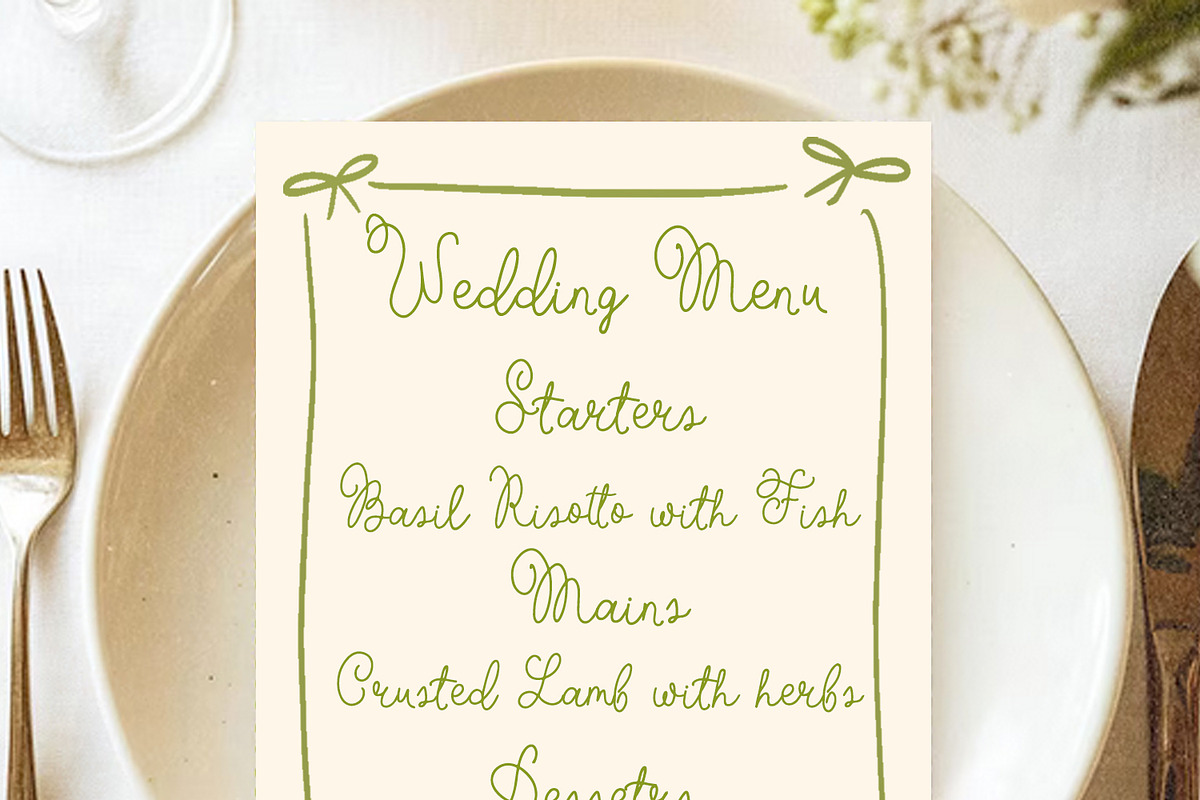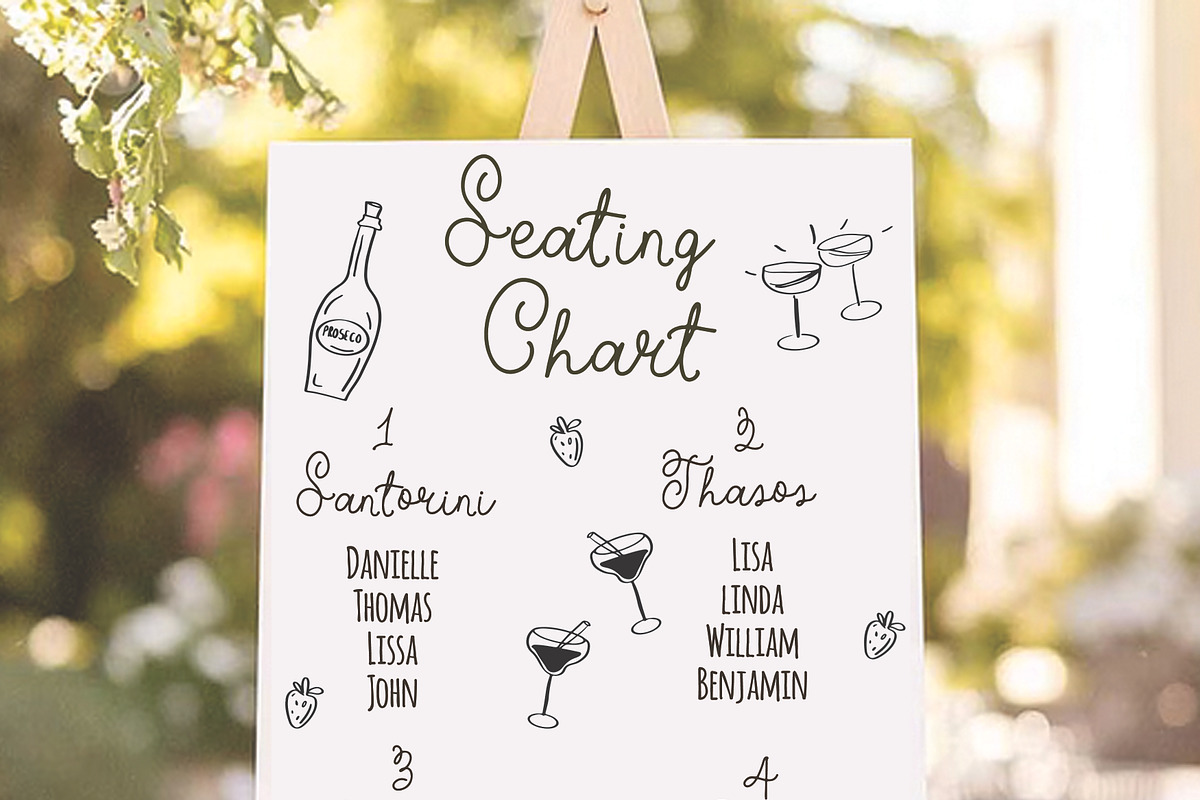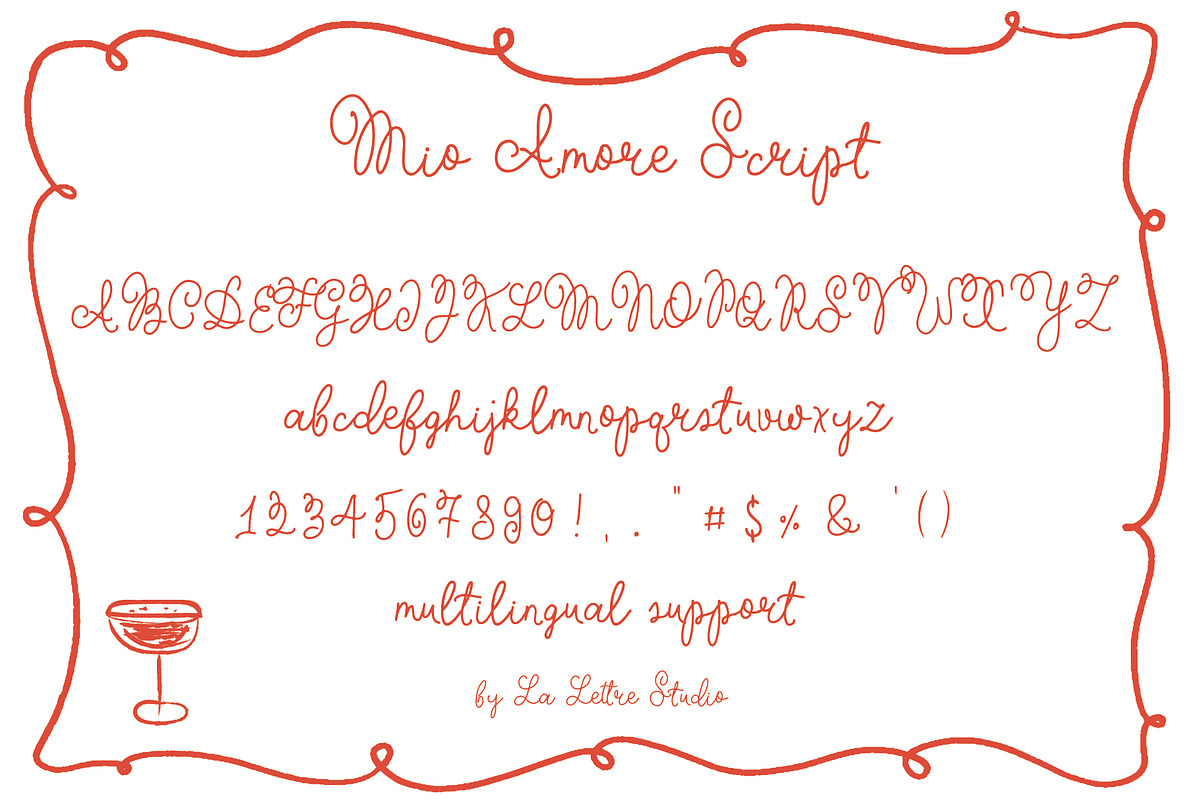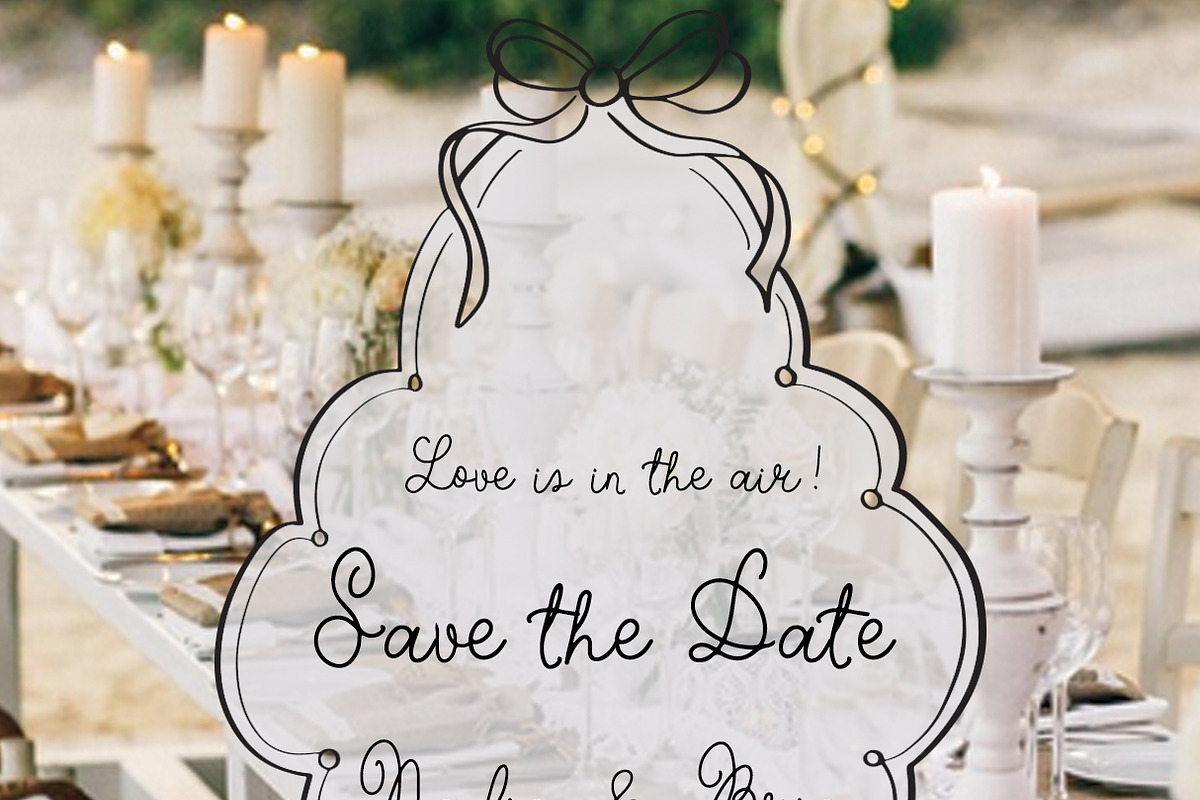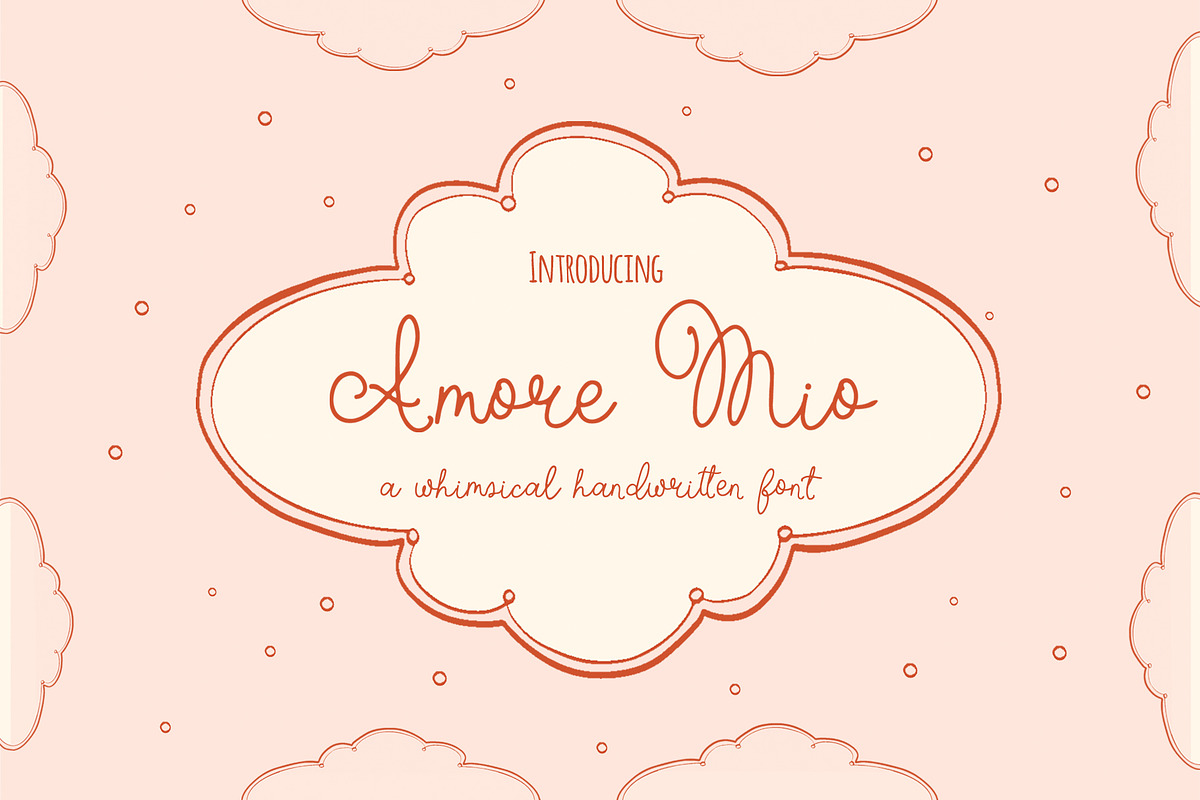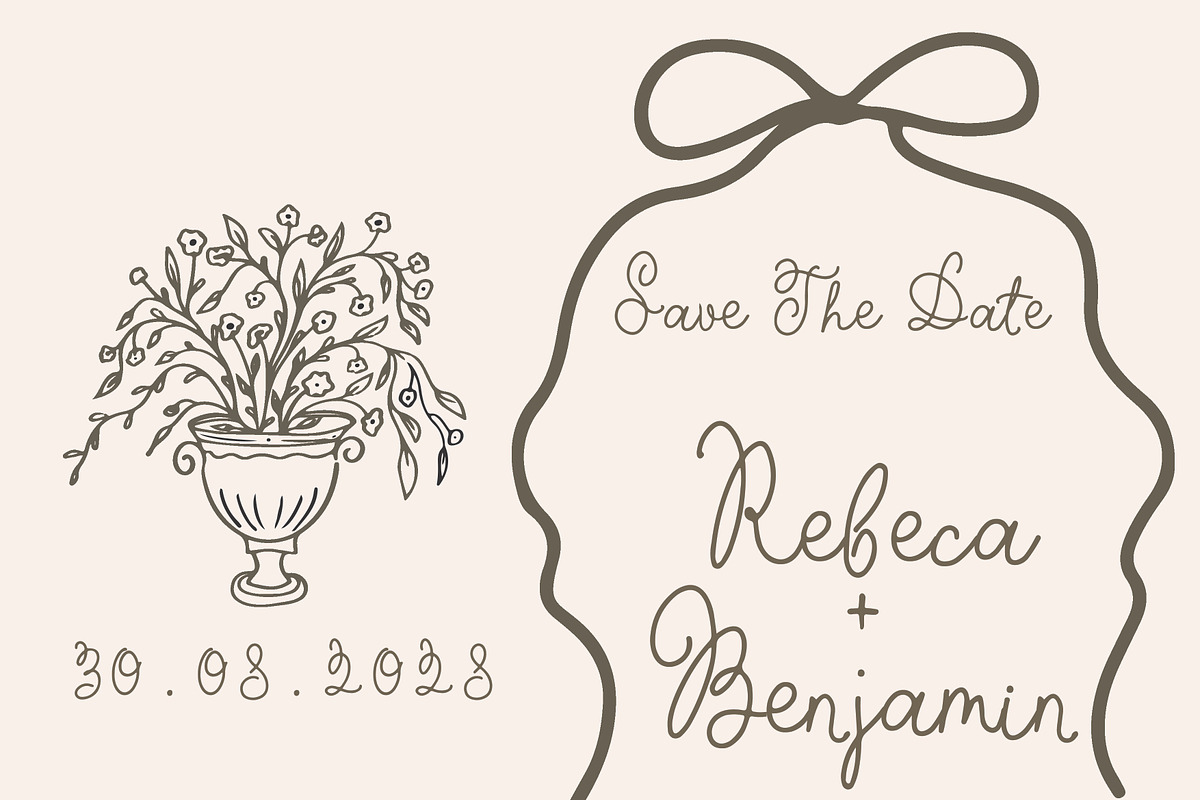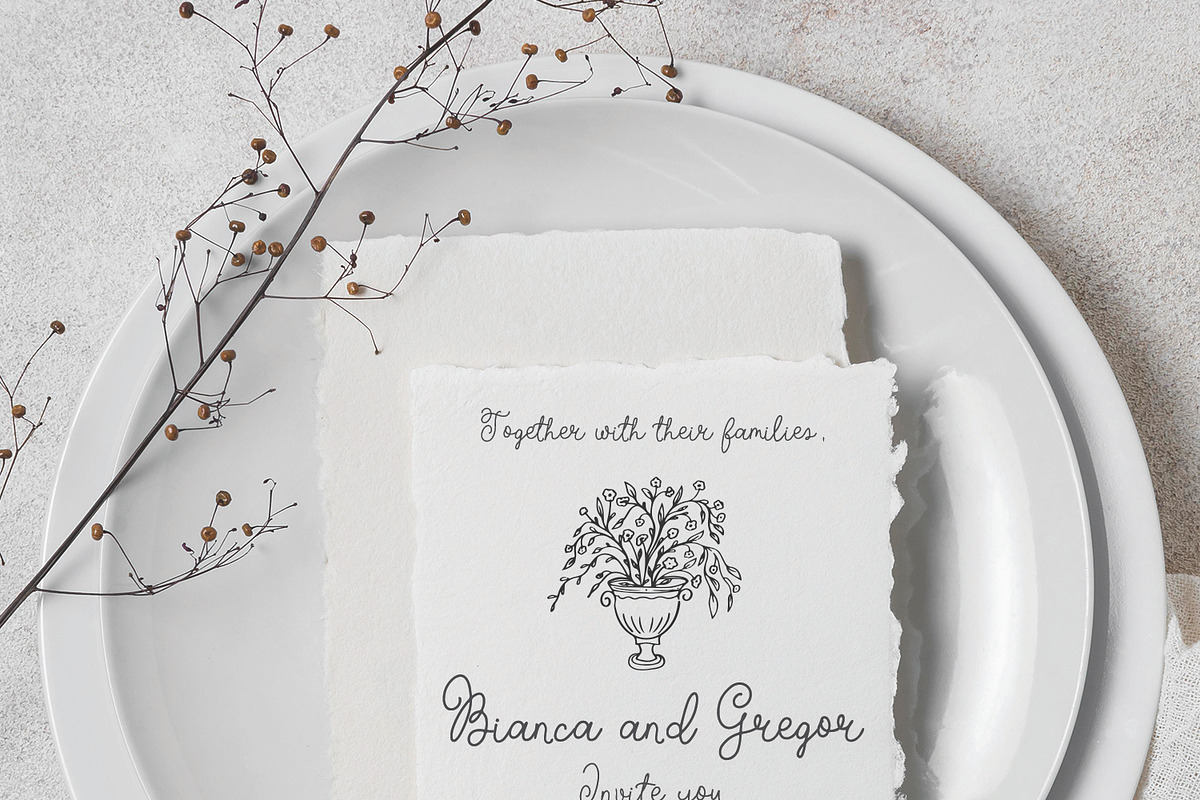
Amore Mio Whimsical Wedding Script
Amore Mio Handwritten Font, Wedding Script Font for Invitations, Whimsical Font for Canva Invitations
Amore Mio is a romantic whimsical script font with an elegant and playful flow, perfect for chic, dreamy stationery, wedding invitations, or any design that needs a touch of charm and whimsy. Just like in the old Grandma's recipe book, Amore Mio brings natural handwriting to light. Let its delicate strokes add a little magic to your projects.
Amore Mio Whimsical Wedding Font includes full set of Uppercase and Lowercase Basic Characters, Numbers, Punctuation and multilingual support. PUA encoded.